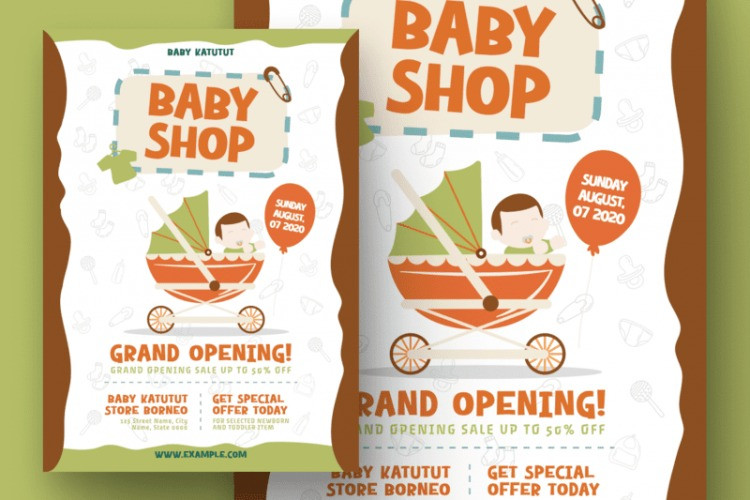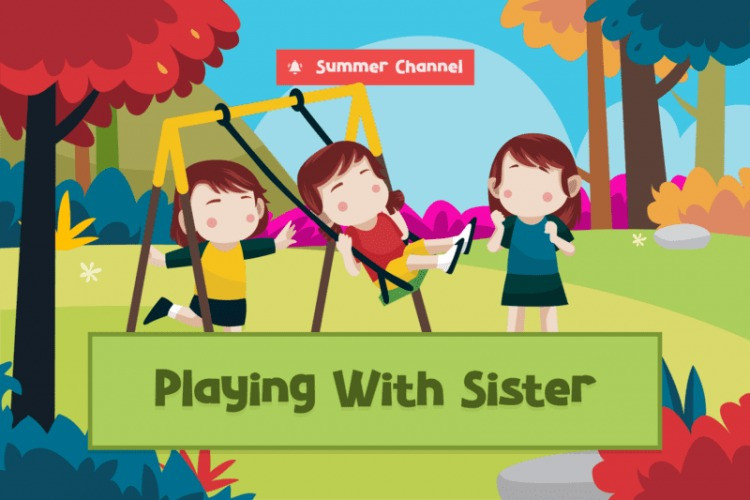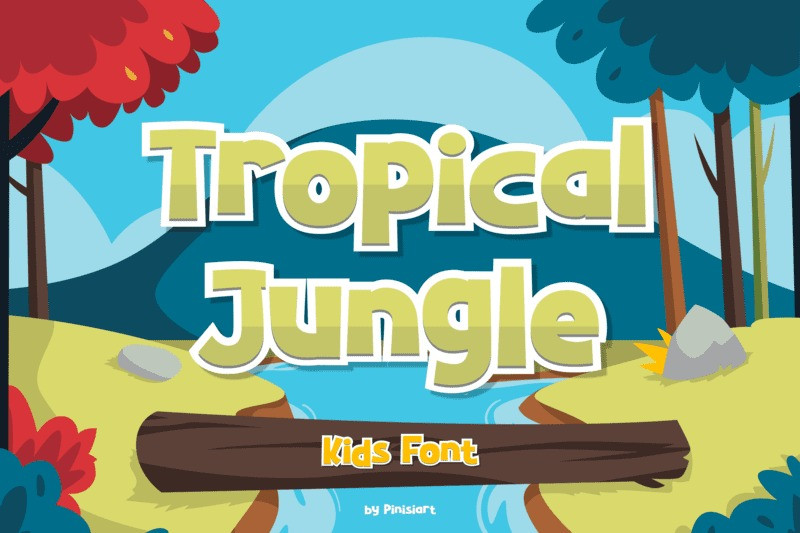
Tropical Jungle Font
Tropical Jungle Display Font, Suitable for any design needs : Comic, ,logo, branding, modern advertising design, logos, poster quote, book / cover Title, editorial design, Cartoon , website / blog, card, t-shirts, and any hand-lettered needs.